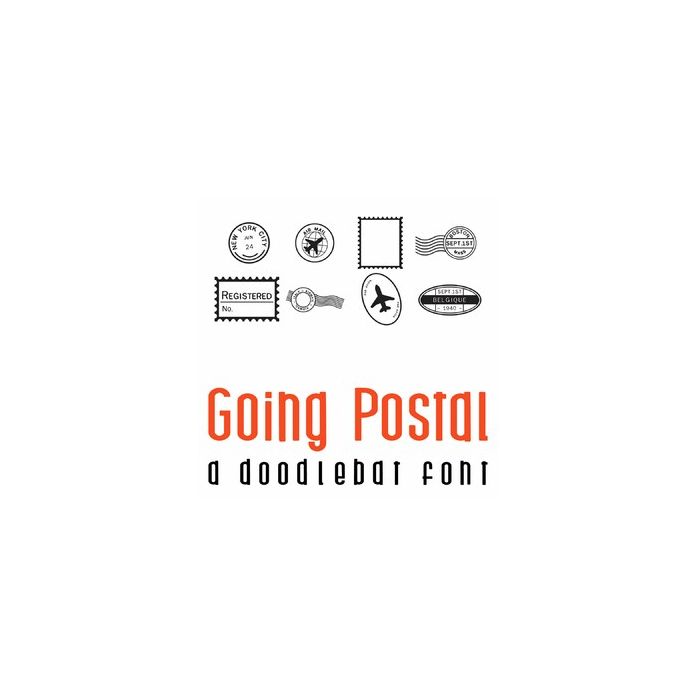
Going Postal Doodlebat Font
This fun doodlebat font features 26 postage marks. Perfect for cards, crafts, gifts, decor, scrap book pages, planner stickers and more!